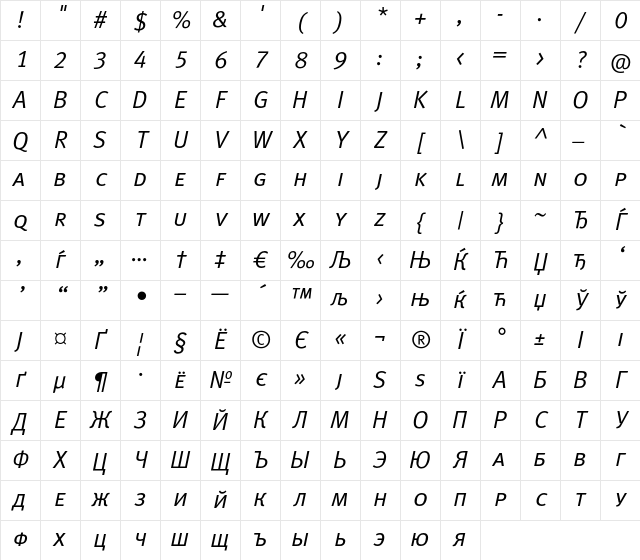
MetaNormalCyrLF-ItalicCaps is a composed and adaptable typeface that performs quietly and consistently across a wide range of design contexts. The slanted form adds forward momentum and visual energy.
Pro Tip: Use MetaNormalCyrLF-ItalicCaps for emphasis, pull quotes, and subheadings where its slanted energy can add rhythm to the layout.